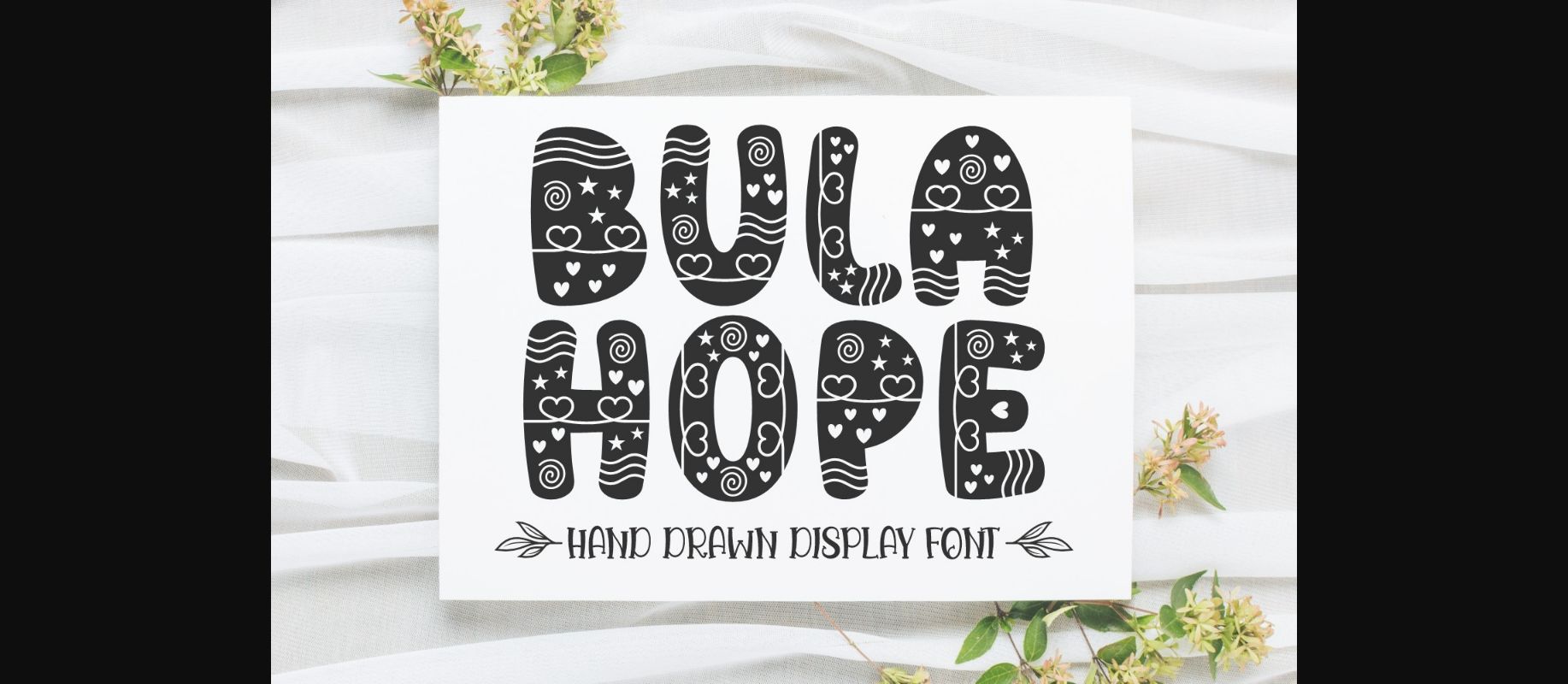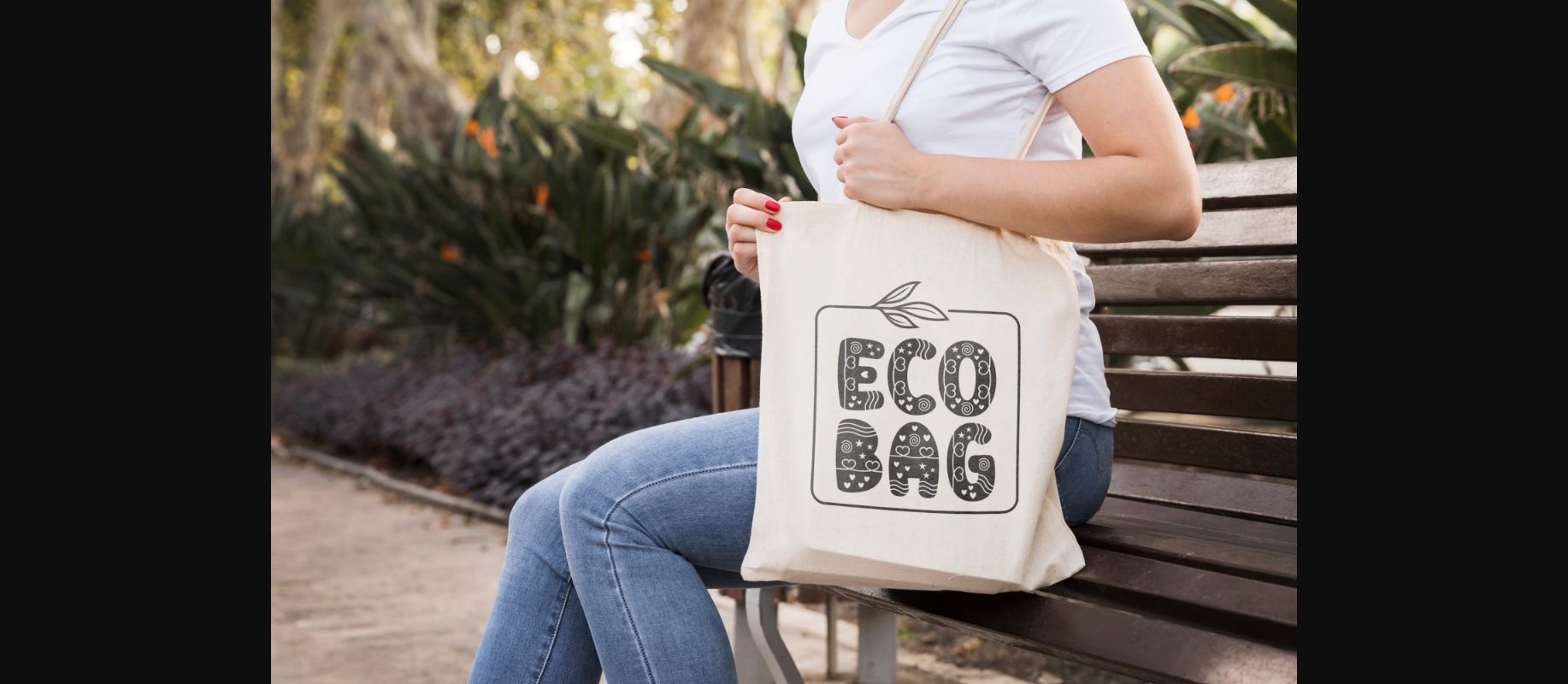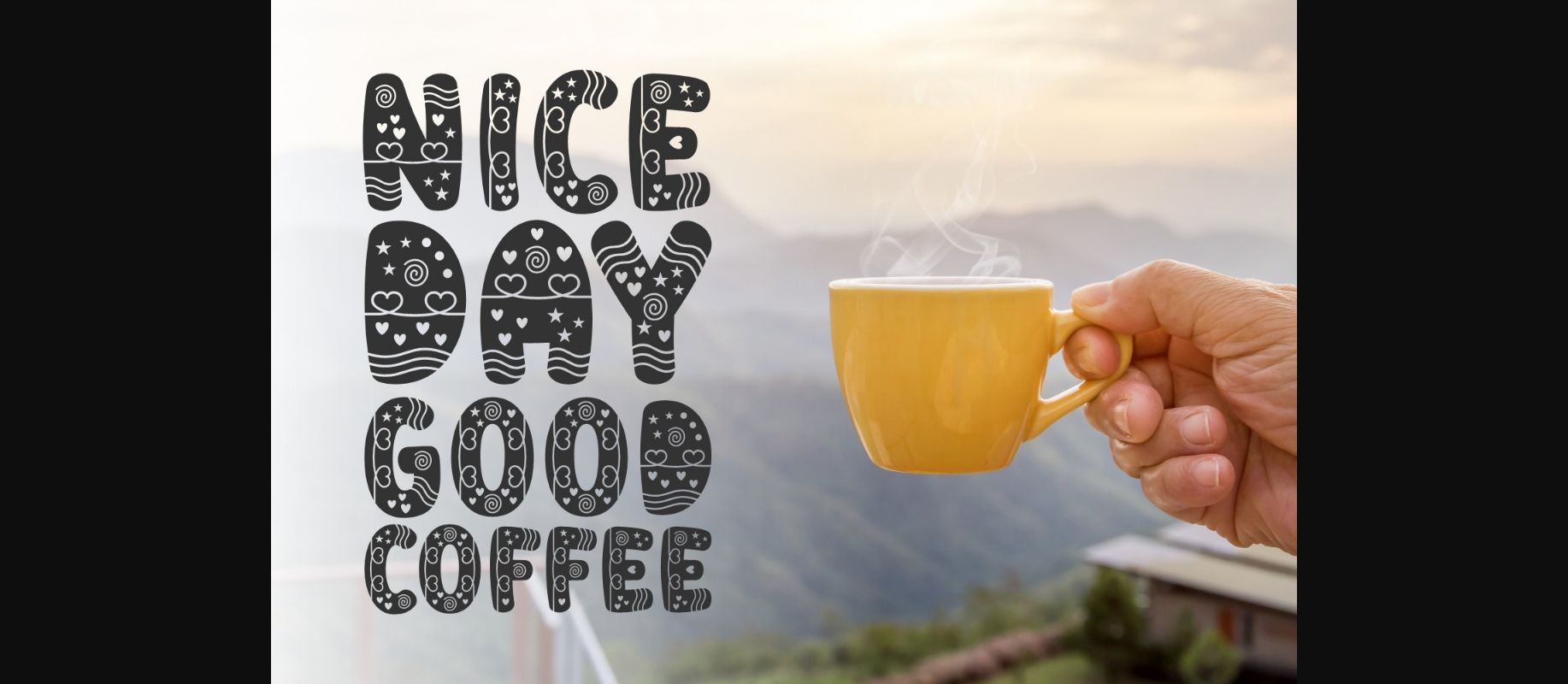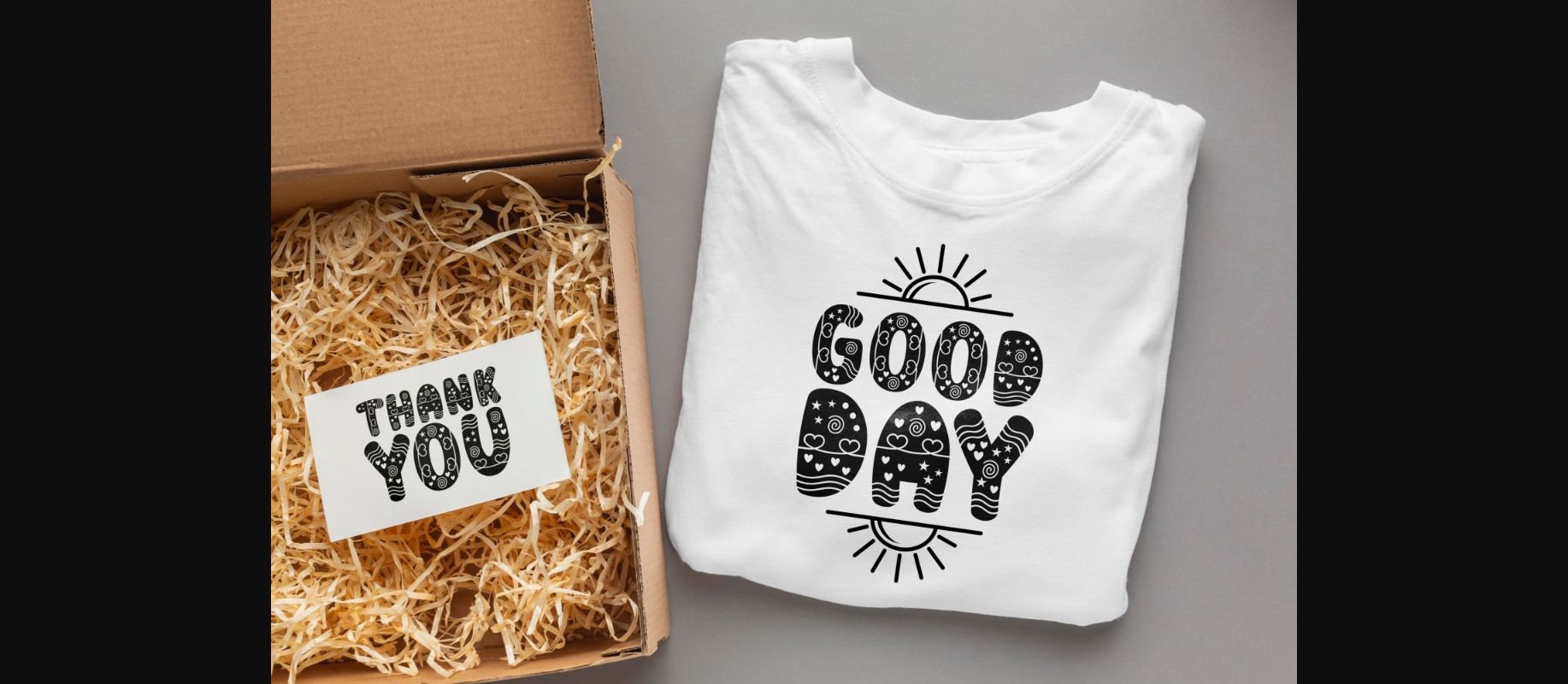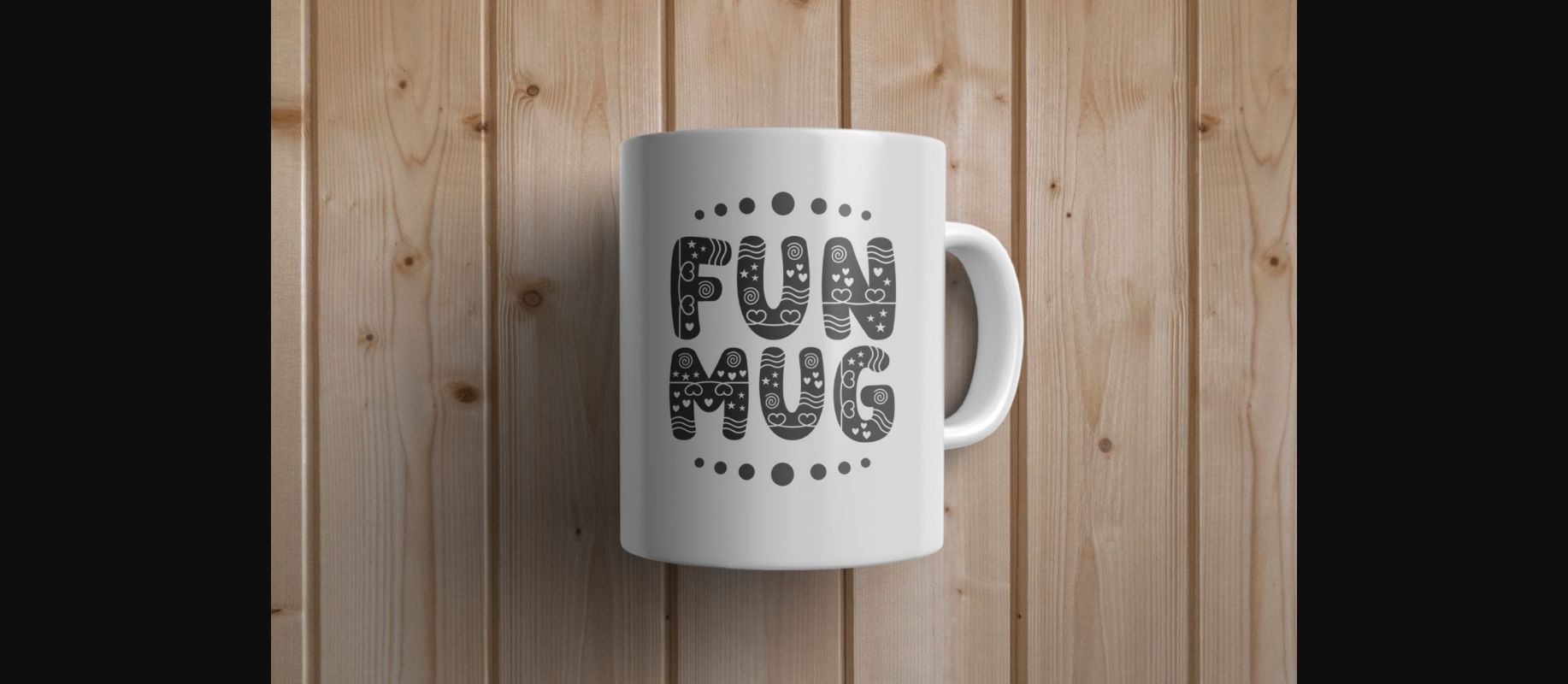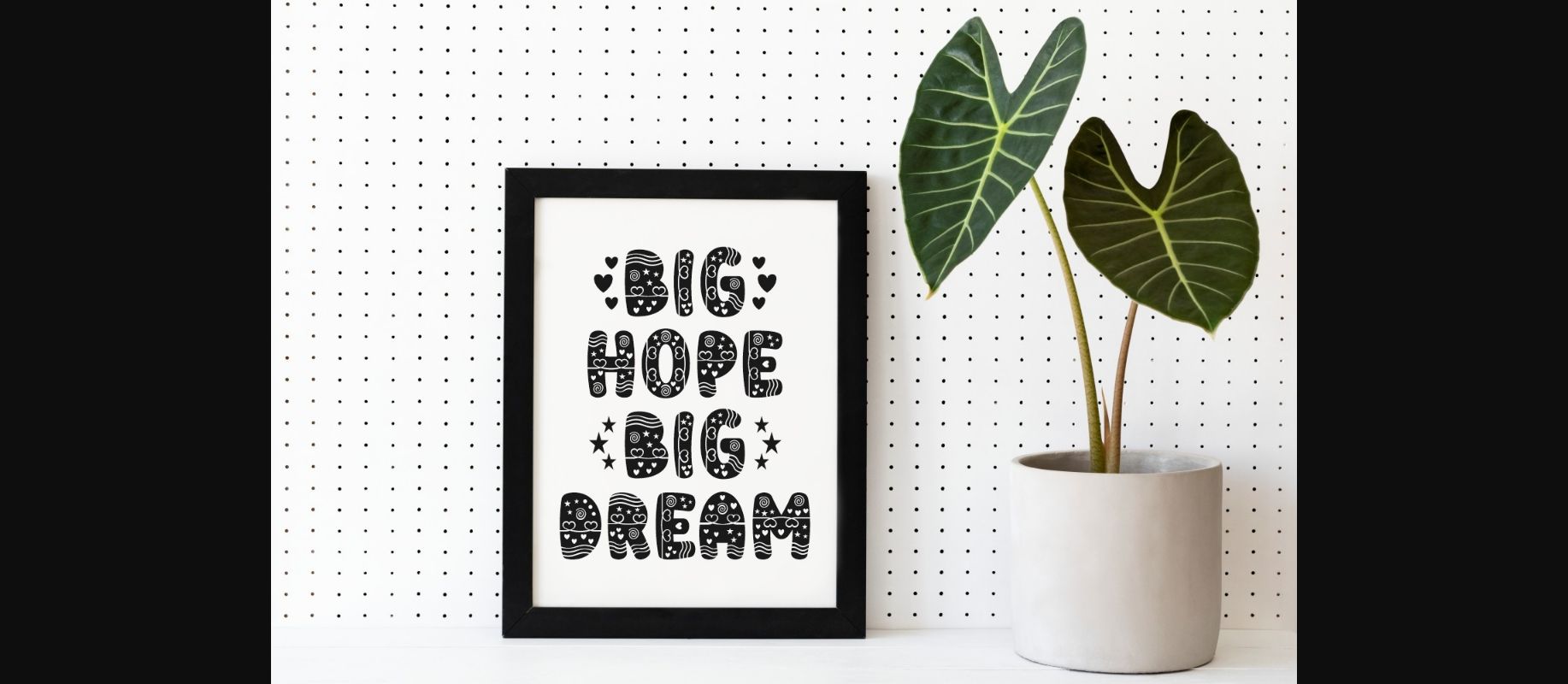
Bula Hope Font
About Bula Hope Font
Bula Hope is a fun and cool decorative font. It is highly detailed and neat, and it will most certainly enhance your various creative ideas.